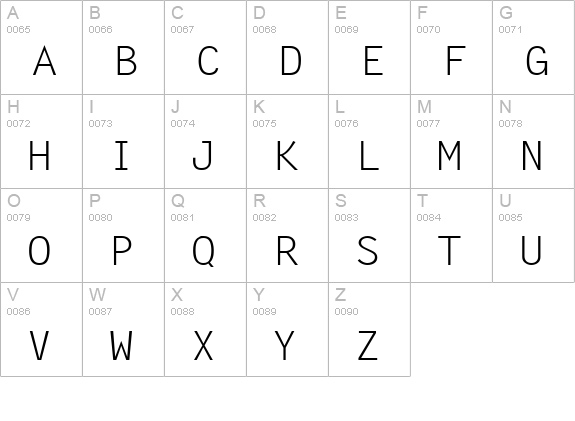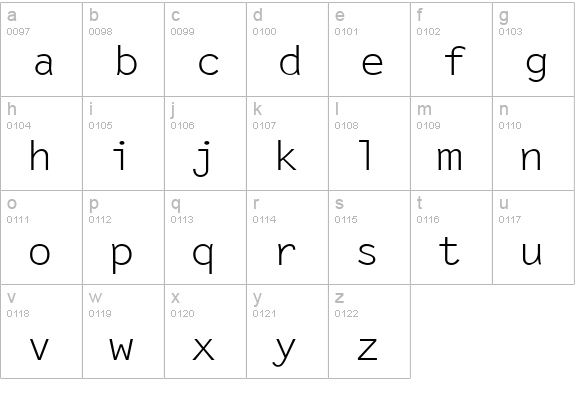
Lechter Wide Normal is the standard, neutral, extended-width variant in the Lechter typeface family \xE2\x80\x94 well suited to general body text, paragraphs, and standard typographic work.
Lechter Wide Normal font is a remarkable typeface that exudes elegance and sophistication. Its clean and modern design makes it perfect for a wide range of projects, from branding and advertising to editorial and packaging. The font features a balanced combination of wide and narrow letterforms, creating a harmonious and visually pleasing appearance. With its versatile nature, Lechter Wide Normal font can effortlessly adapt to various design styles, making it a go-to choice for both professional designers and enthusiasts. Its legibility and readability ensure that your message is conveyed effectively, no matter the medium or size. Whether you're working on a print advertisement or a website design, this font will make your content stand out and leave a lasting impression. What makes Lechter Wide Normal font even more appealing is that it is freely available to download at FontsMarket.com. This means that you can enjoy all its amazing features without any cost or restrictions. By offering this font for free, it allows designers and creatives to access high-quality typography without breaking the bank. So, if you're looking for a versatile and visually stunning font that will elevate your designs, look no further than Lechter Wide Normal font. Download it for free at FontsMarket.com and start creating captivating visuals that will leave a lasting impact.